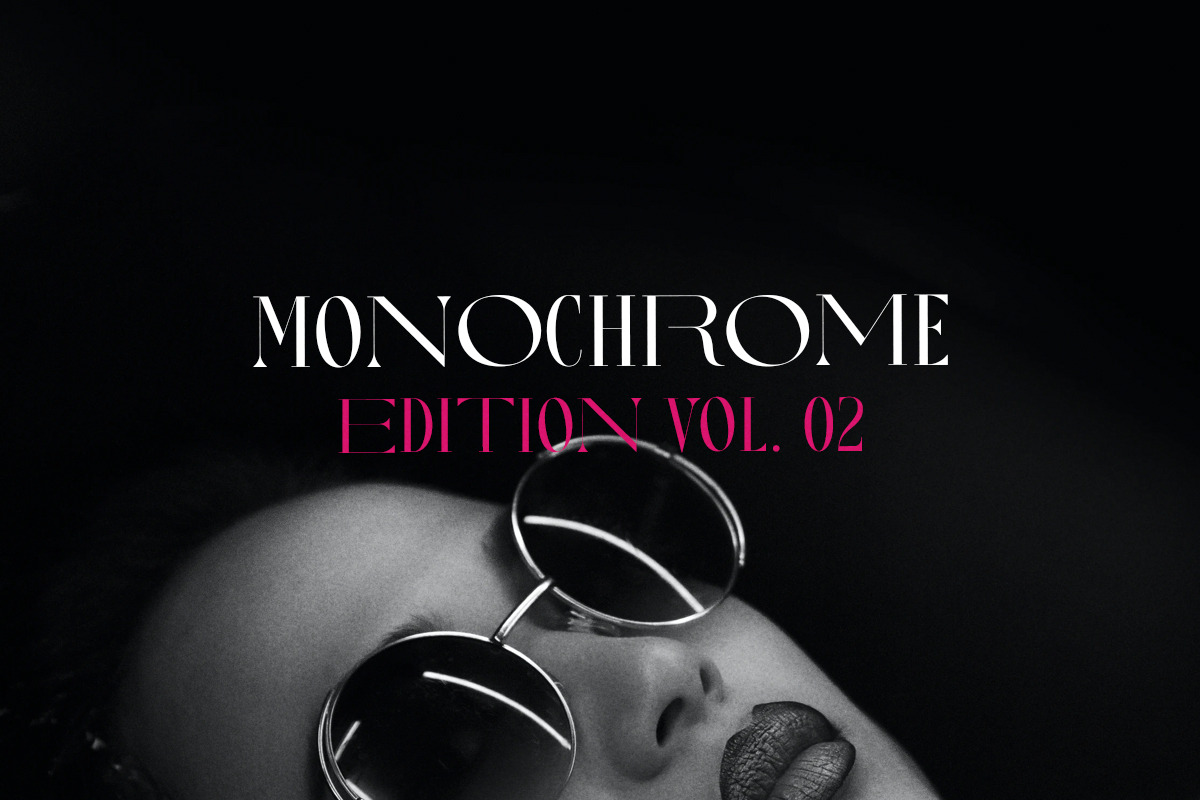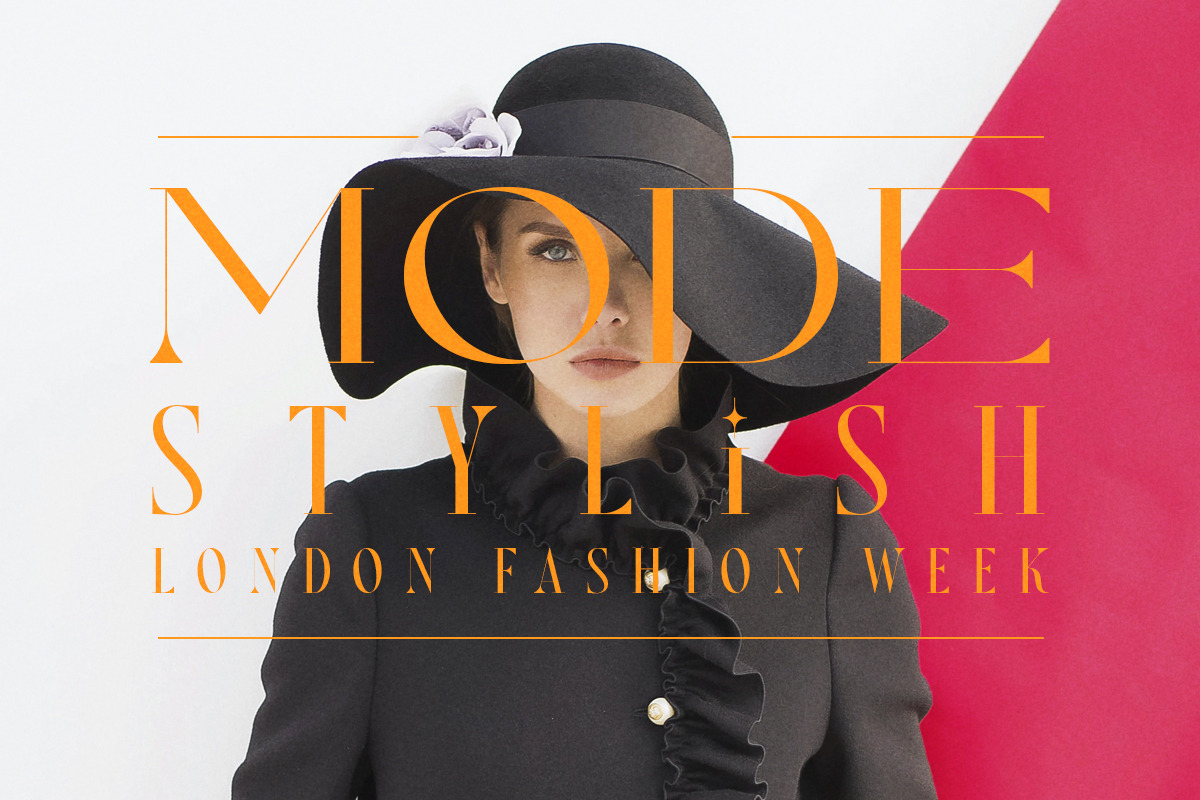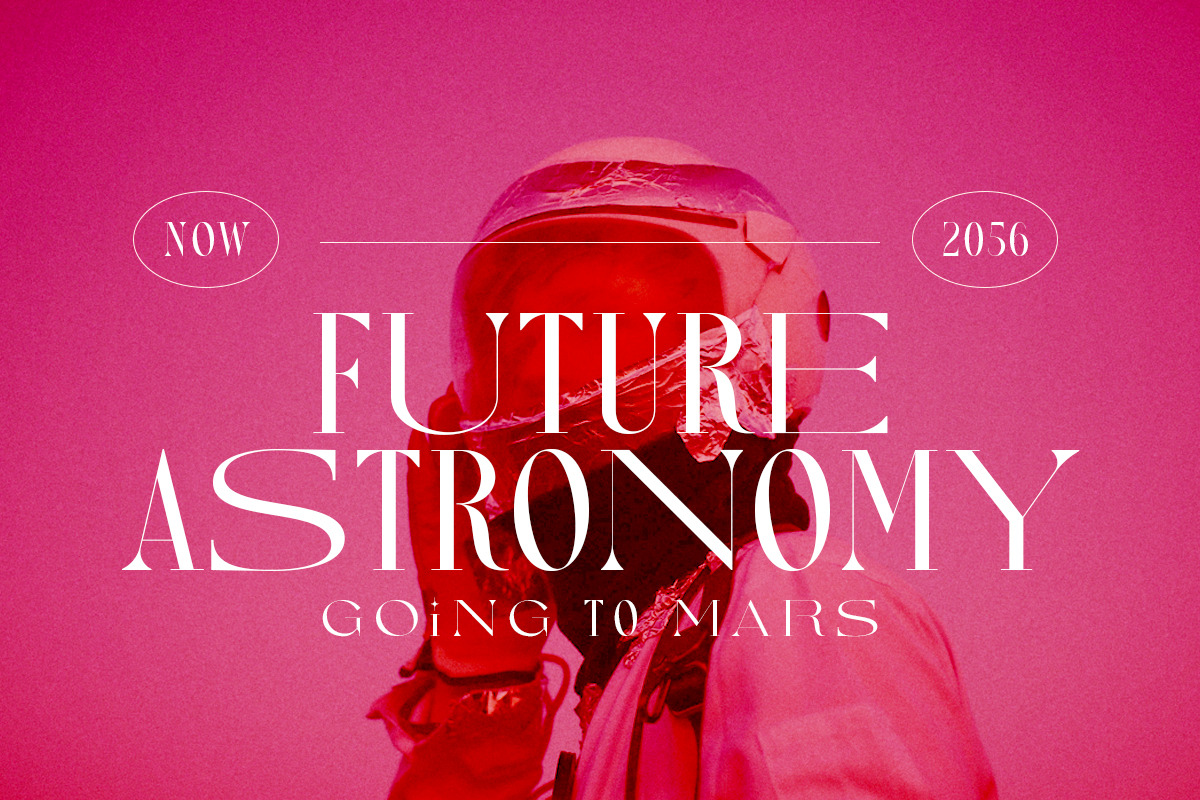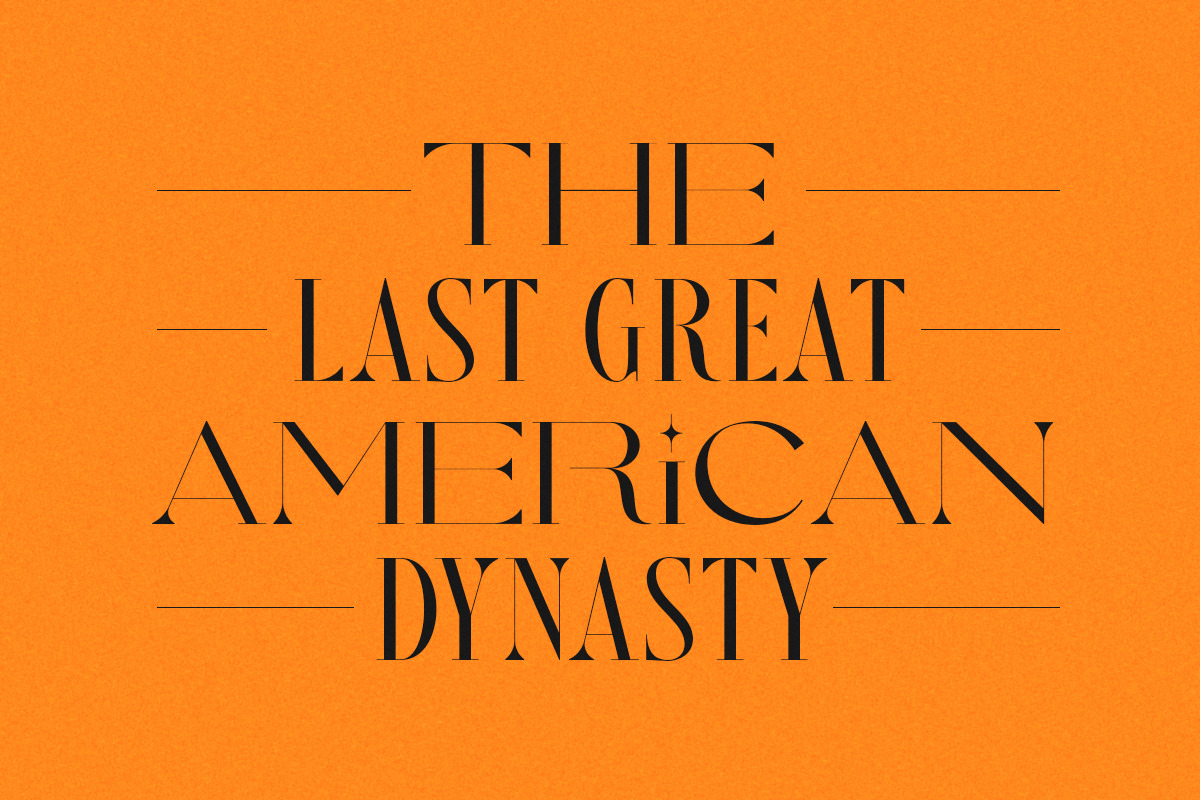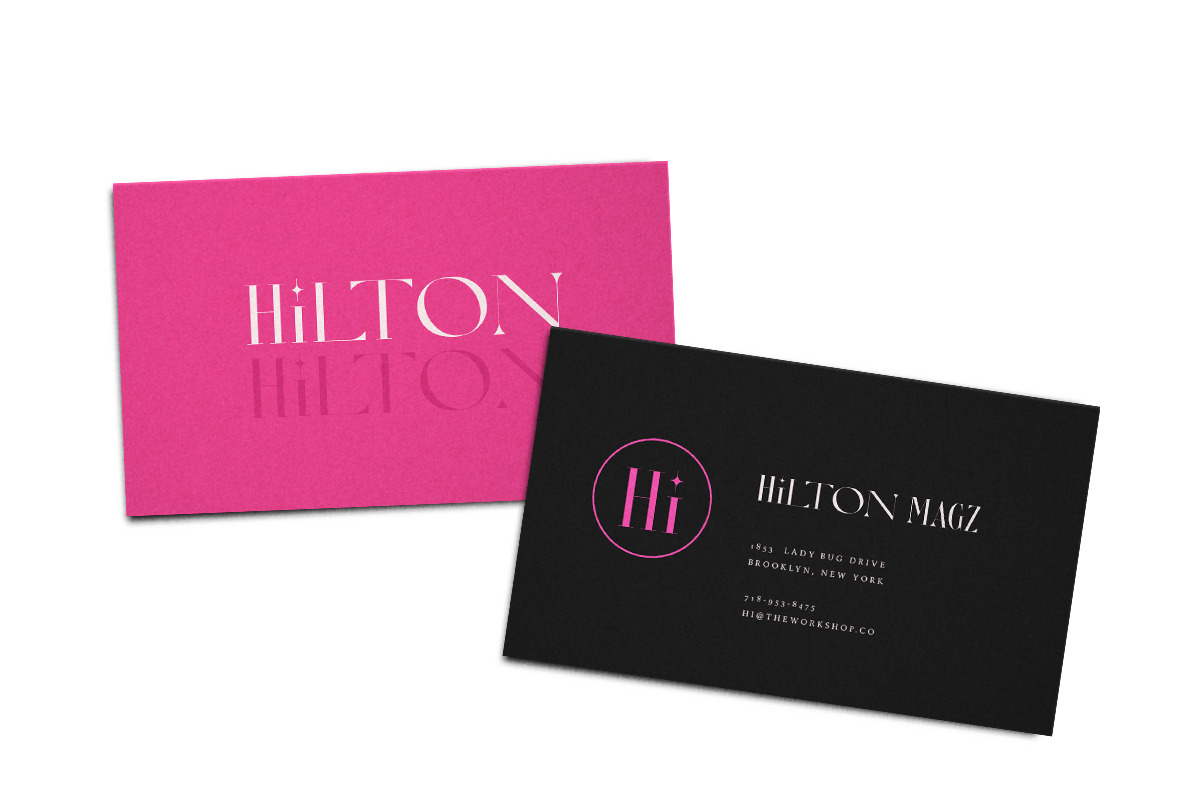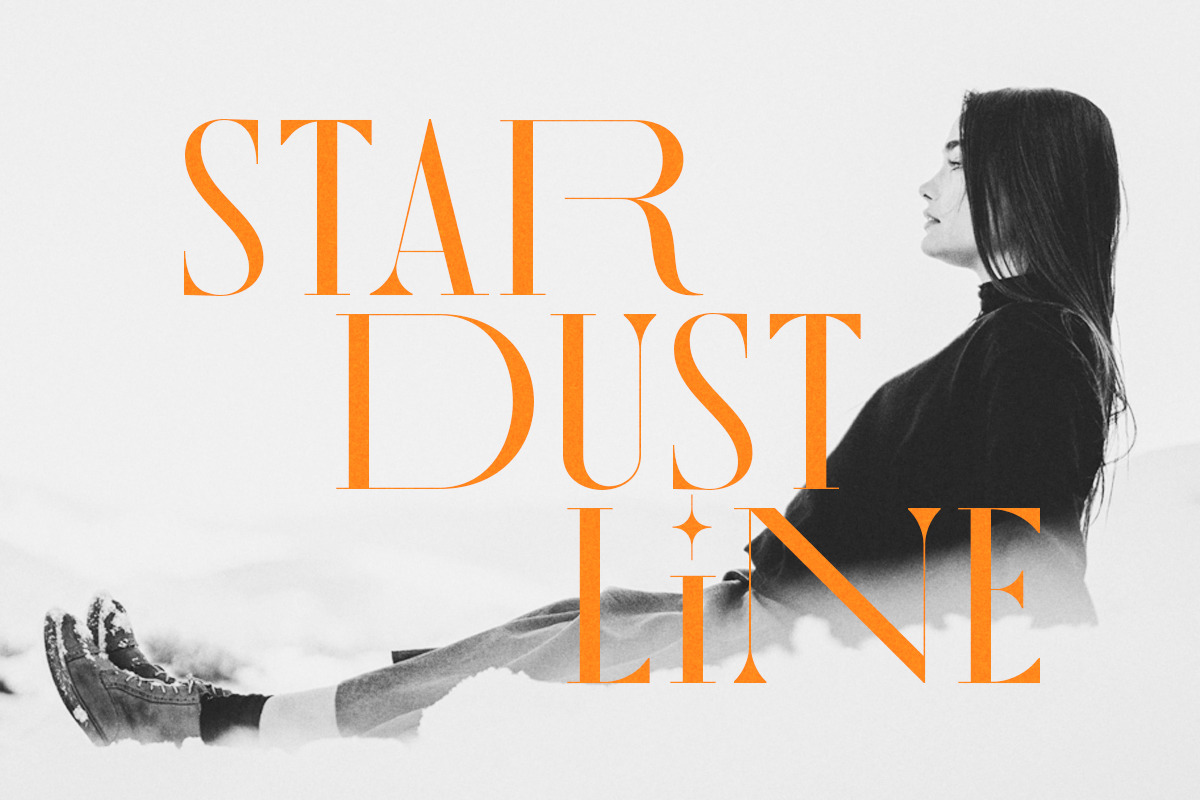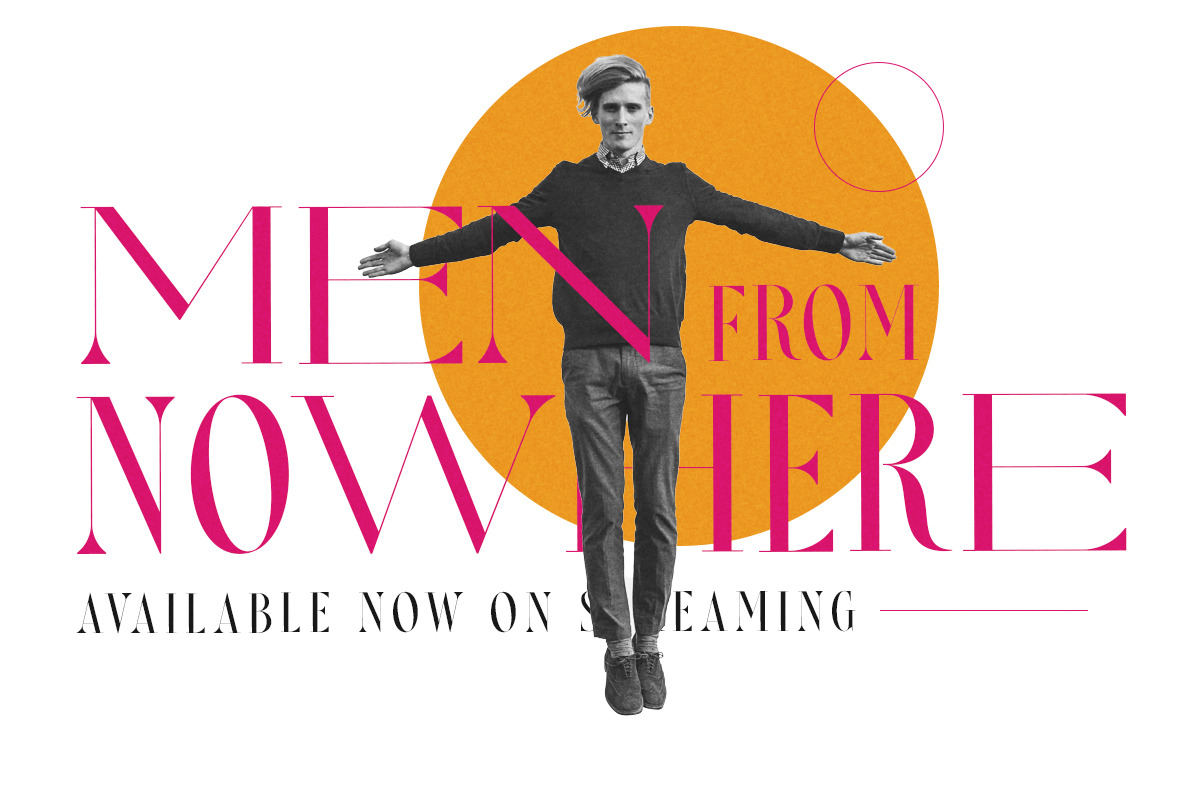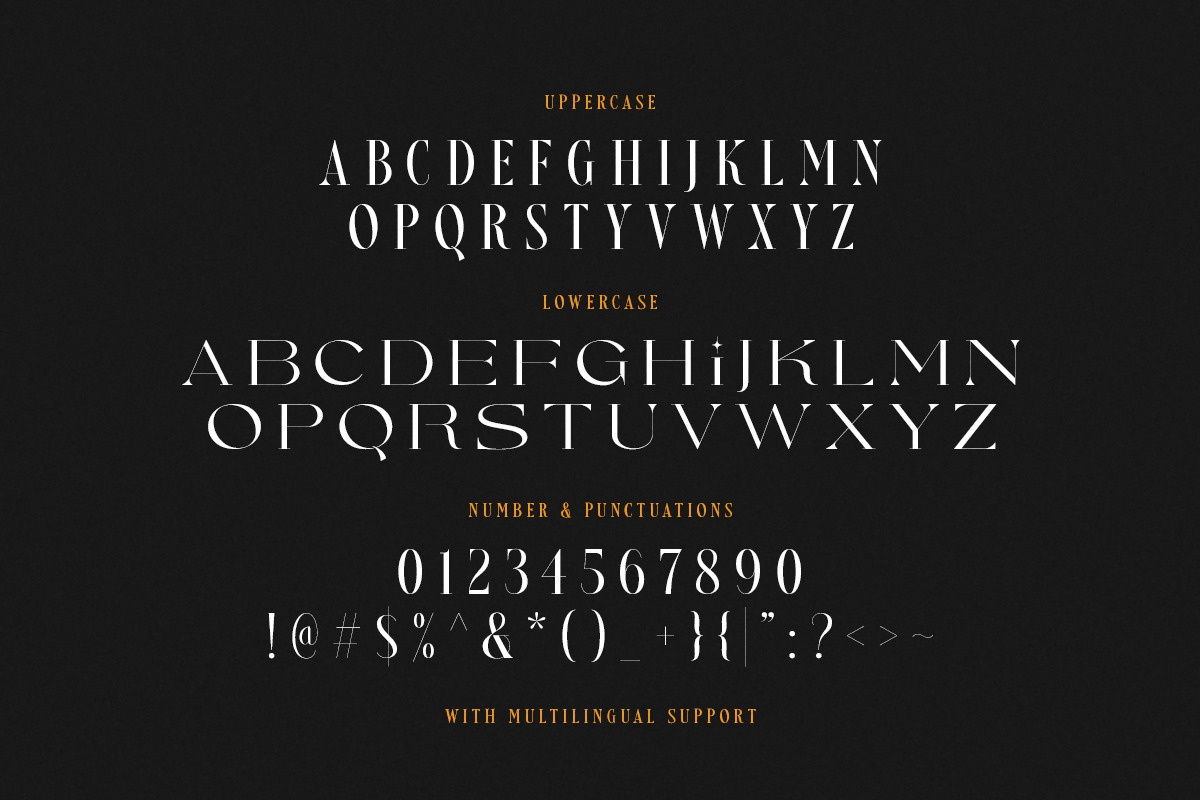
Nefarious - Modern Serif
Nefarious is a unique and modern serif. With expanded version as lowercase, this fonts will make your presentation, poster, logo, or your magazine cover even more stunning and stand out with simple step! You can mix and match the uppercase and lowercase for modern looks. This fonts support Multi Language.
- Uppercase with expanded lowercase
- Multi language